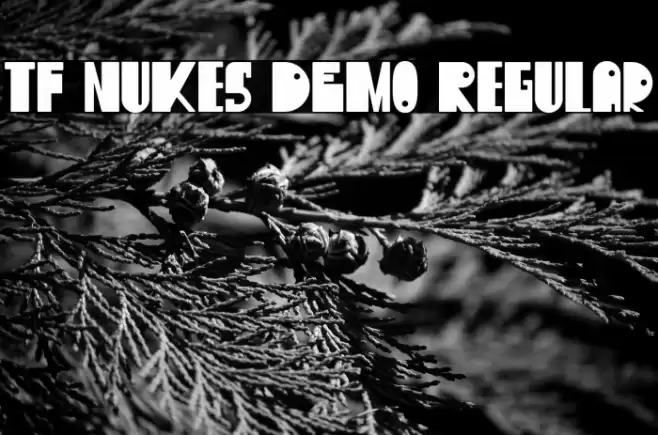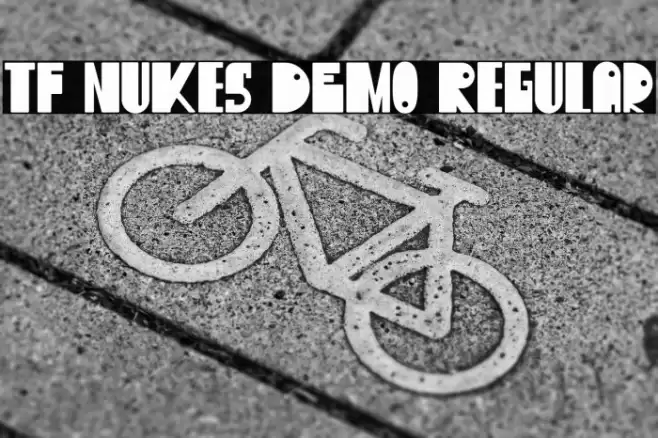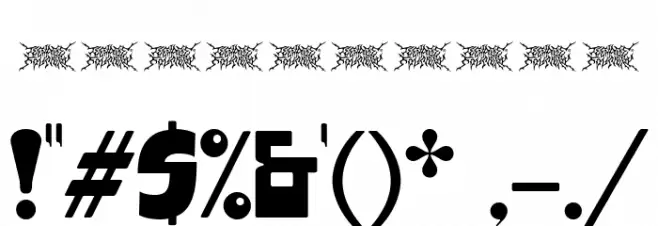
TF Nukes DEMO Regular Font
TF Nukes DEMO Regular Description
This font features a bold and geometric design with a strong emphasis on circular and angular shapes. The uppercase letters are distinct with a mix of solid and cut-out sections, creating a dynamic and eye-catching appearance. The lowercase letters maintain the boldness and geometric style, ensuring consistency across the typeface. The numbers and special characters are equally bold and stylized, fitting seamlessly with the overall design. This font is ideal for projects that require a strong visual impact and a modern, edgy look.
A bold, geometric font with dynamic shapes and strong visual impact from Uncategorized fonts.
- Proposed Projects: Ideal for posters, logos, album covers, and any design needing a bold statement.